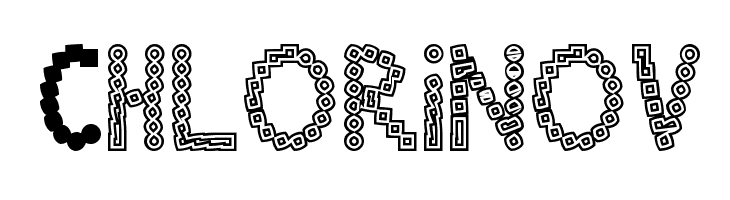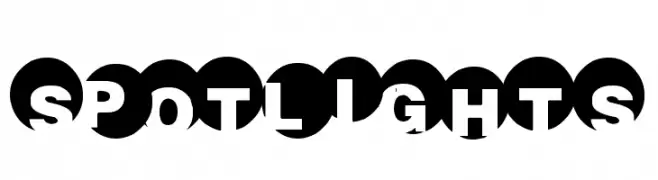
A bold, geometric font with a modern and abstract design.
A bold, geometric display font with high contrast and decorative elements.
A decorative font with abstract, mystical symbols and geometric shapes.
Ornate, symbolic font reminiscent of ancient or mystical iconography.
A bold, geometric font with a unique spotlight effect created by circular shapes.
A collection of sci-fi inspired arrowhead symbols for decorative use.
A playful, button-like font with characters encased in circular outlines, ideal for creative projects.
A playful, geometric font with a retro, pixelated style.
A bold, geometric font with a playful and modern design.